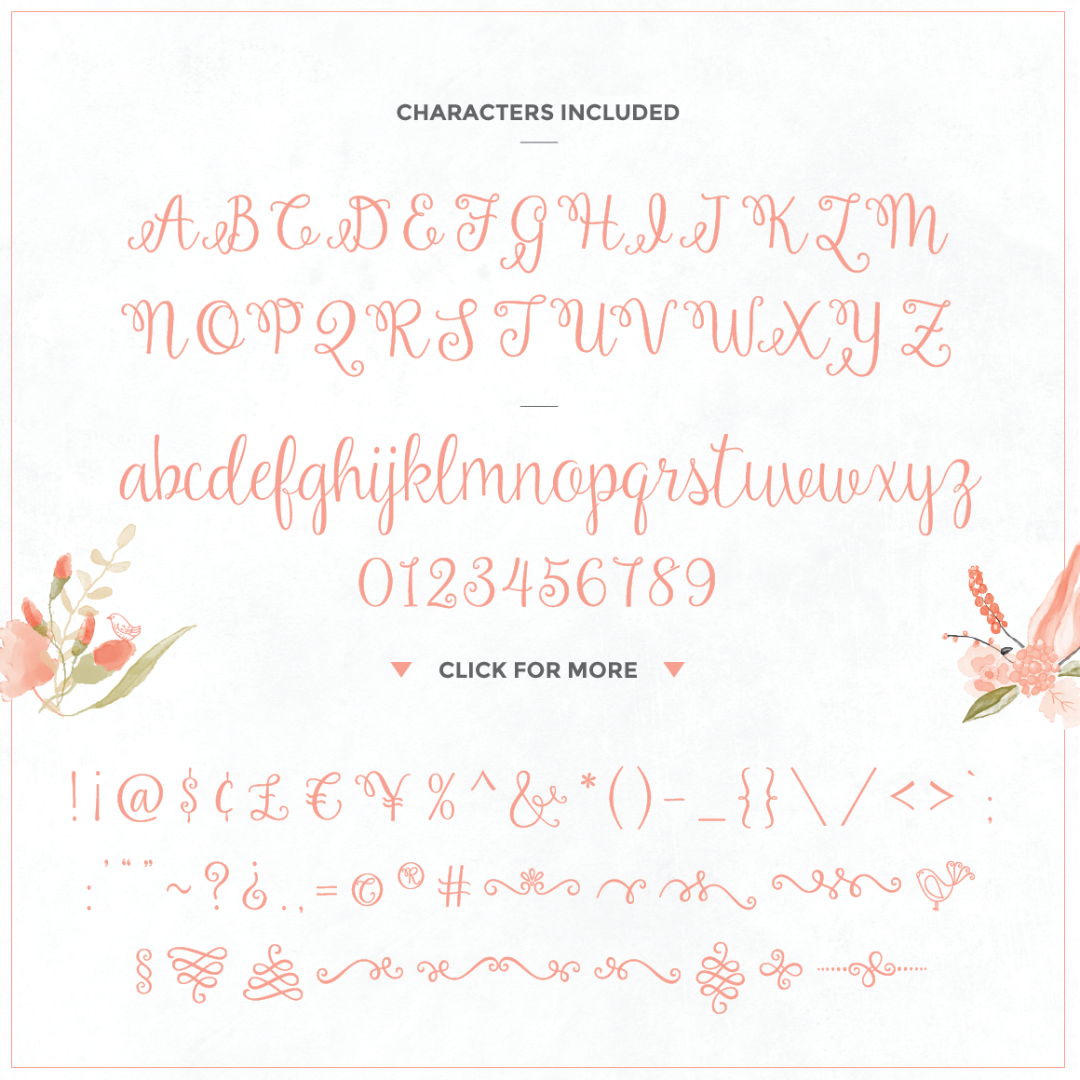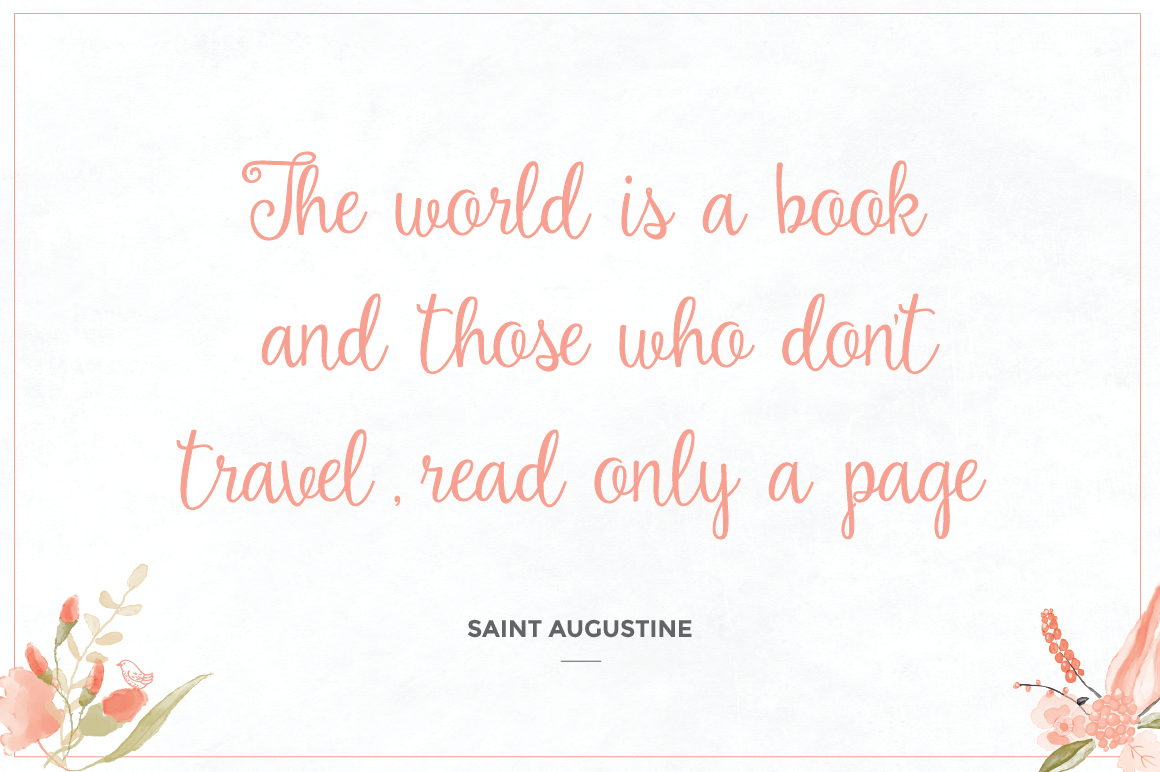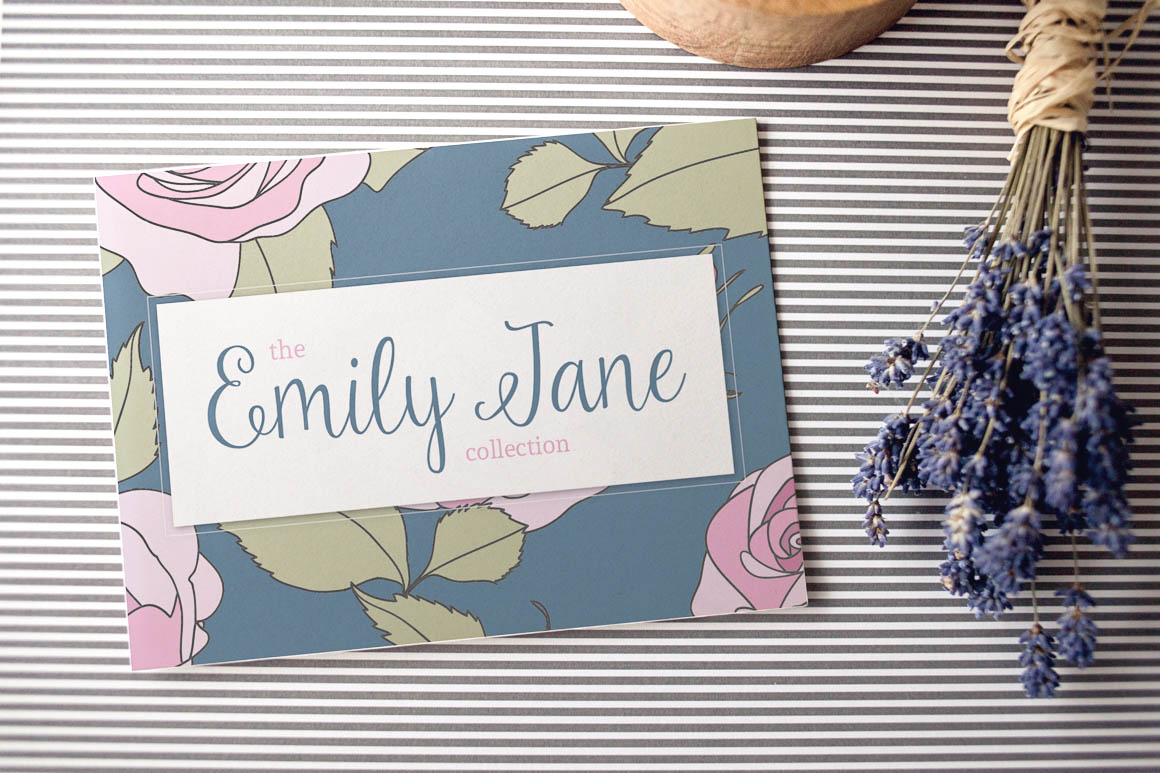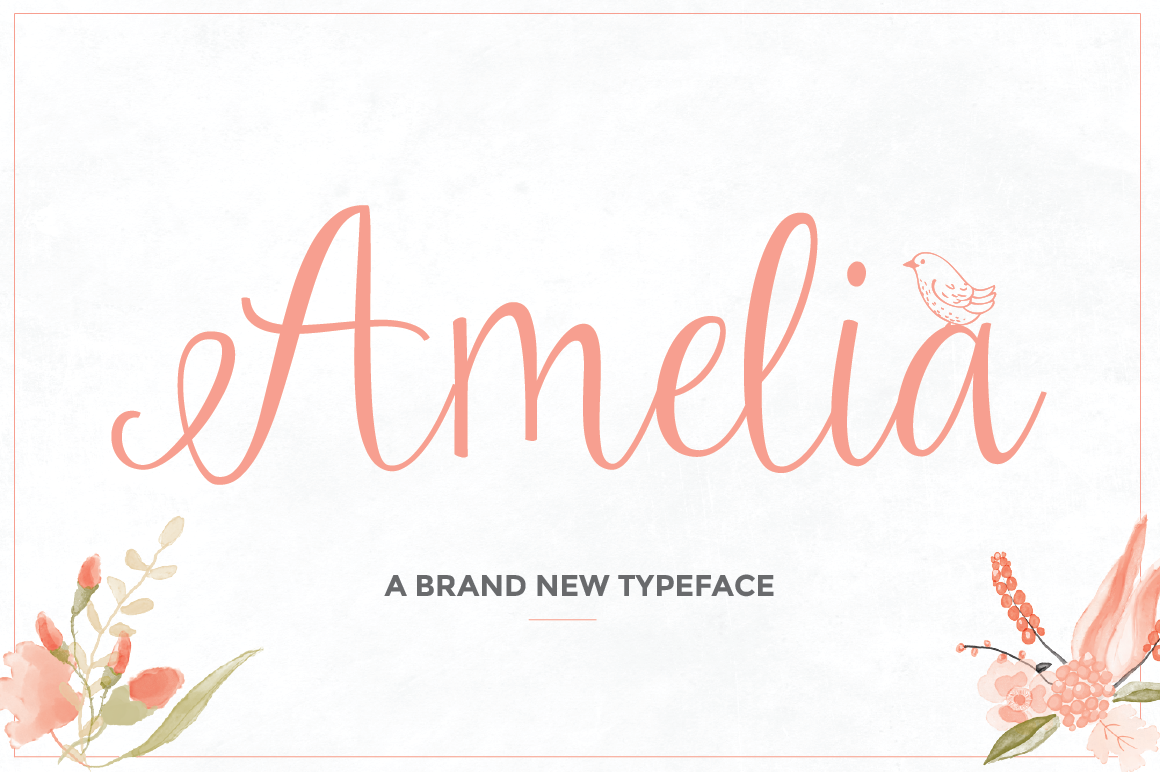
When Words Flow Like Love Letters
Do you remember the feeling of receiving a handwritten love letter from your sweetheart, the way the cursive script danced across the page, and the emotions that came flooding back? That’s exactly the kind of magic you can create with the Amelia Script Font. This beautiful, feminine font is perfect for adding a touch of elegance and whimsy to your designs.
As a designer, you’re always on the lookout for that special something that sets your work apart from the rest. That’s where the Amelia Script Font comes in – a versatile and legible script font that’s just as at home in headlines as it is in body text. Its friendly, flowing curves make it a valuable addition to any design arsenal.
Key Features of Amelia Script Font
- Font Family: Amelia Script, Amelia Script Pro
- Unique Characteristics: Elegant, cursive script with a classic and sophisticated feel; perfect for wedding invitations, greeting cards, and other special occasions
Amelia Script Font Review
Overall, I think the Amelia Script Font is a solid choice for designers looking for a elegant, handwritten font. ✨ Its fluid connections and subtle flourishes make it perfect for adding a touch of personality to your designs.
The font’s versatility is one of its strongest suits – it works well for titles, headings, and even short paragraphs. The script style is also easy to read, even at smaller font sizes. ✨ Additionally, the font’s OpenType features allow for some nice ligatures and swashes, which can add an extra layer of sophistication to your designs.
- ⚠️ Limited character set: While the font does include a decent range of letters and punctuation, it’s not as comprehensive as some other script fonts on the market.
- ⚠️ Not ideal for body text: Due to its script style, the font can be a bit difficult to read at larger font sizes, and may not be the best choice for extended blocks of text.
Overall, I think the Amelia Script Font is a great addition to any designer’s toolkit. It’s a beautiful, elegant font that’s perfect for adding a touch of personality to your designs. However, it may not be the best choice for every project, and designers should be aware of its limitations.
Getting the Most Out of Amelia Script Font
To get the most out of Amelia Script Font, try the following tips:
- Use it for titles and headings to add a touch of elegance.
- Pair it with bold fonts for contrast and visual interest.
Amelia Script Font is perfect for:
- Quote graphics and posters.